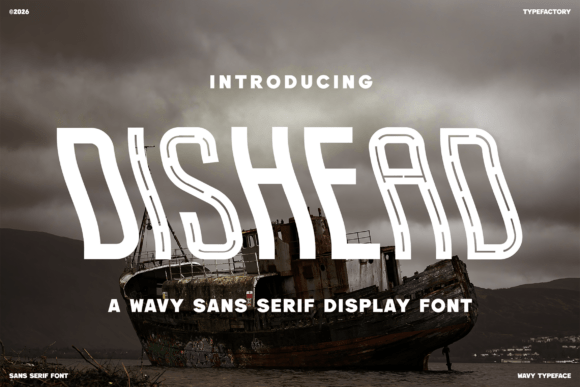
Introduction to Dishead Font
Dishead is a wavy sans serif display font with bold futuristic shapes, curved vertical strokes, and a strong experimental look.
Its modern distorted style works well for music posters, streetwear graphics, album covers, event flyers, editorial headlines, branding, signage, packaging, and bold visual identity projects .
Key Features of Dishead Font
Why Choose Dishead Font?